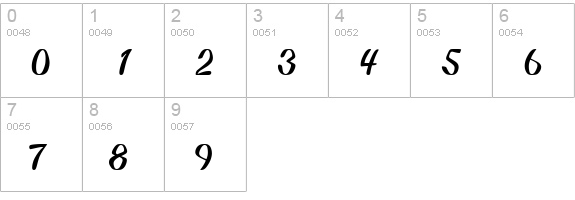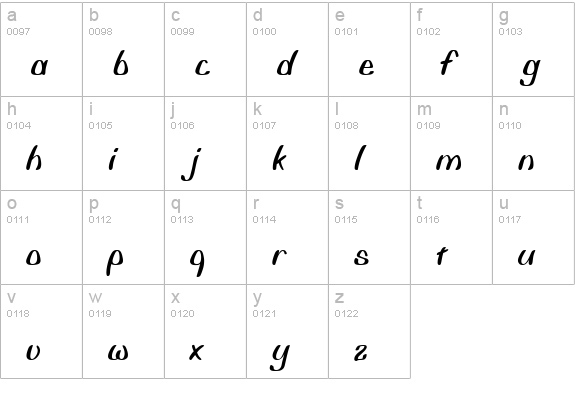
Witchdoctor Font Details
Introducing Witchdoctor font, a spellbinding typeface that exudes a mystical charm and enigmatic allure. With its intricate curves and bewitching details, Witchdoctor font is perfect for adding a touch of magic to your designs. Whether you're working on a spooky Halloween project or crafting a mystical branding identity, this unique font is sure to captivate your audience. What's even more enchanting is that Witchdoctor font is available for free download at FontsMarket.com. Embrace the magic of this captivating typeface and unleash your creativity with Witchdoctor font today!